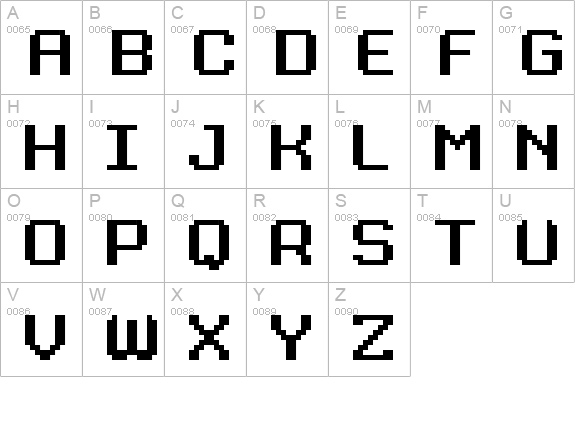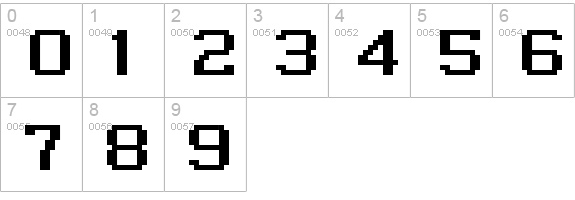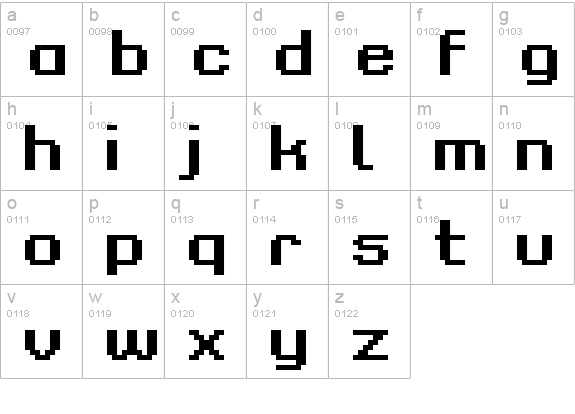
Grixel Kyrou 9 Regular Bold Xtnd is the standard, neutral variant in the Grixel typeface family \xE2\x80\x94 well suited to general body text, paragraphs, and standard typographic work.
Grixel Kyrou 9 Regular Bold Xtnd is a striking and versatile font that exudes a sense of modernity and sophistication. With its bold weight and extended proportions, this typeface commands attention and adds a touch of boldness to any design project. The clean lines and sharp edges of Grixel Kyrou 9 Regular Bold Xtnd make it perfect for headlines, titles, and branding materials that require a strong visual impact. What's even better is that Grixel Kyrou 9 Regular Bold Xtnd is available for free download at FontsMarket.com. This means you can easily access this high-quality font and incorporate it into your projects without any cost. Whether you're working on a website, poster, flyer, or any other design, Grixel Kyrou 9 Regular Bold Xtnd is sure to elevate your work with its bold and contemporary aesthetic. Download this font today and add a touch of modern flair to your designs!